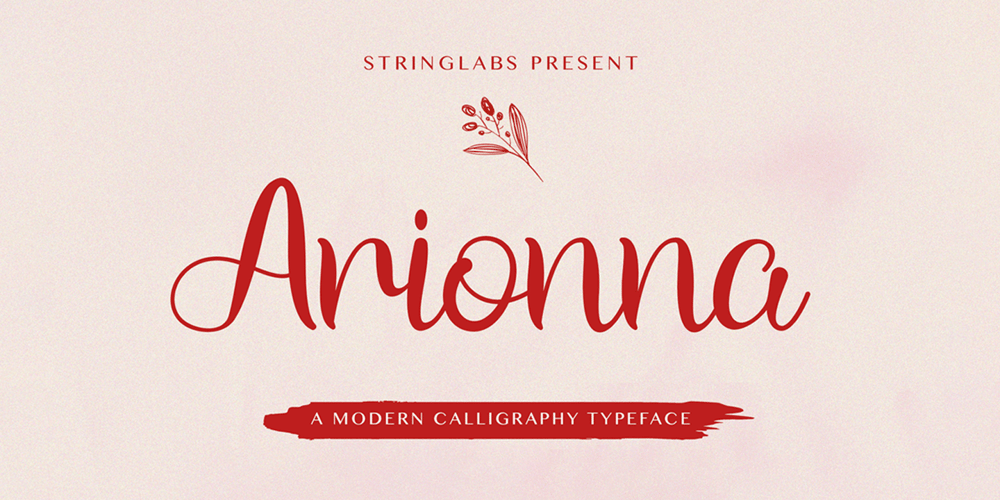
Arionna Font Family was designed by Virgiawan Listanto and published by Stringlabs Creative Studio. Arionna contains 1 styles and family package options. Arionna is a Script Font with Calligraphy Style. The Arionna font made with modern digital brush pen strokes that making this font look beautiful. This font is perfect for fashion brand, wedding invitation, business card, logo brand, signature, and then calligraphy.